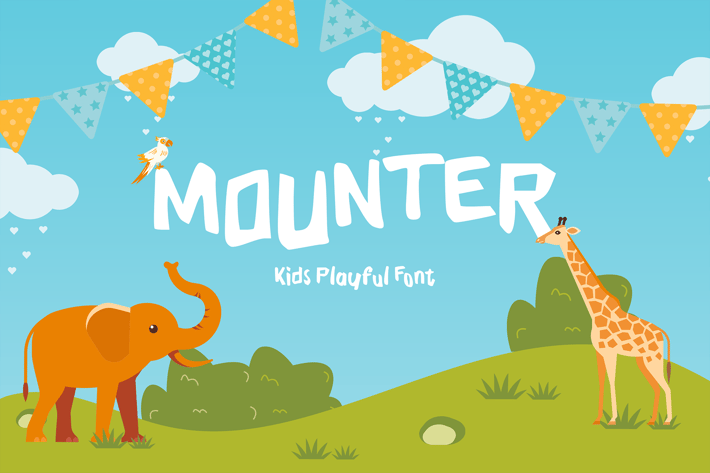
Mounter Kid Display Font
Mounter Kid Display Font, is our new font and suitable for mockup or any work.
Great for
Sticker, Invitation Card, Brochure, etc.